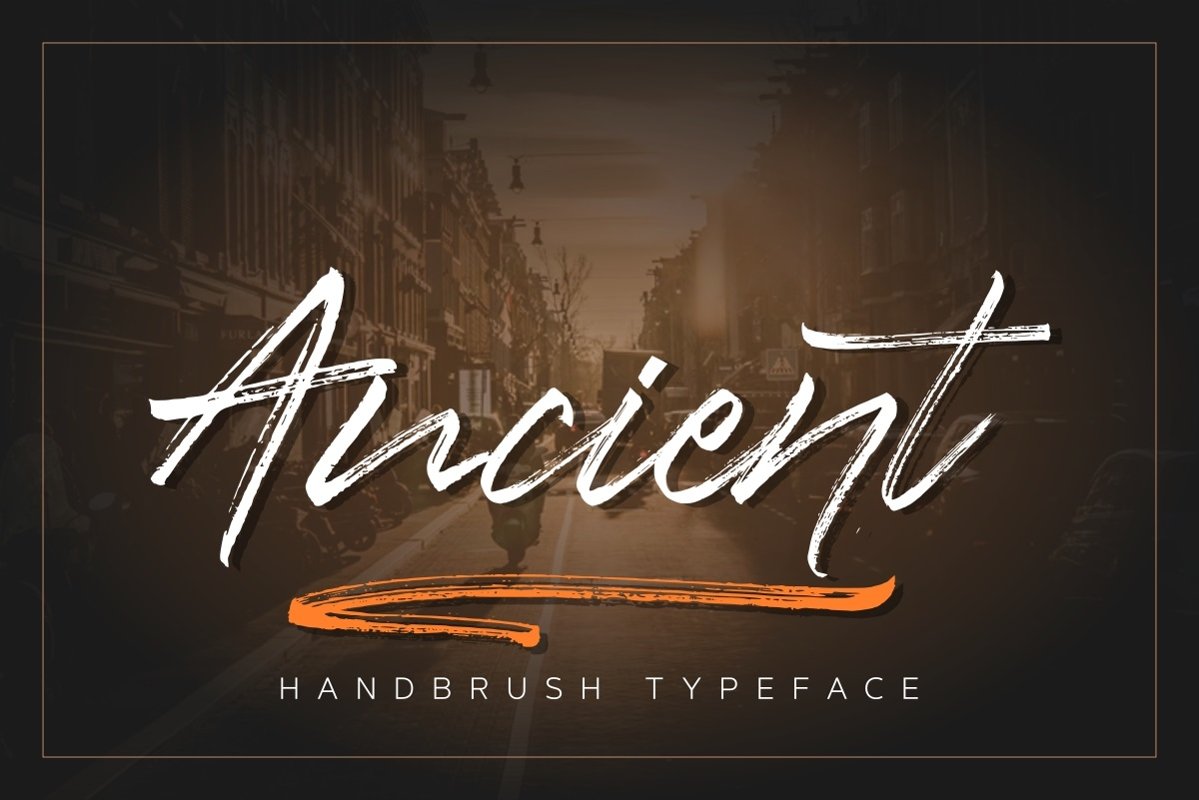
Ancient Handbrush
Ancient
The Ancient is a font that is made using hand scratches and processed to produce amazing vectors, suitable for promotion of products, shirts, mugs, business cards and more.